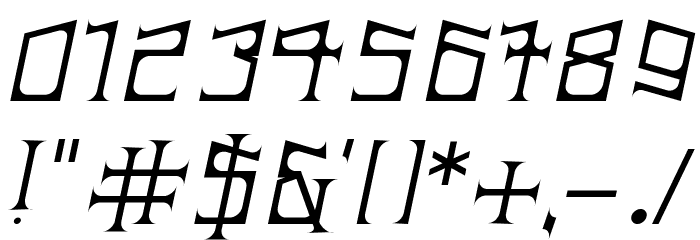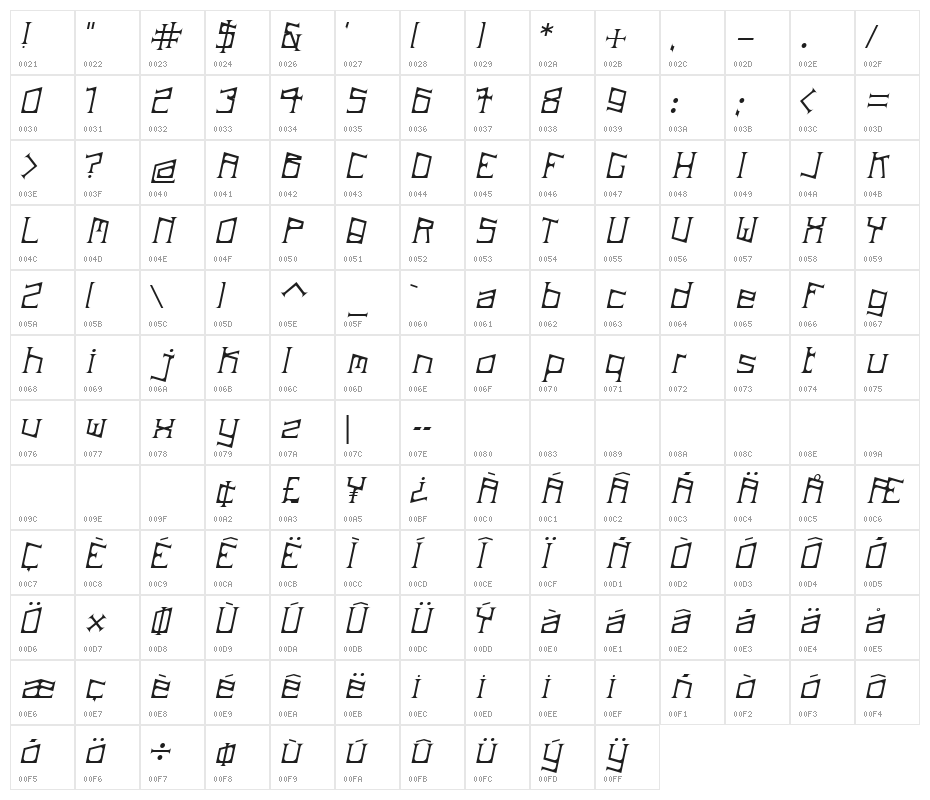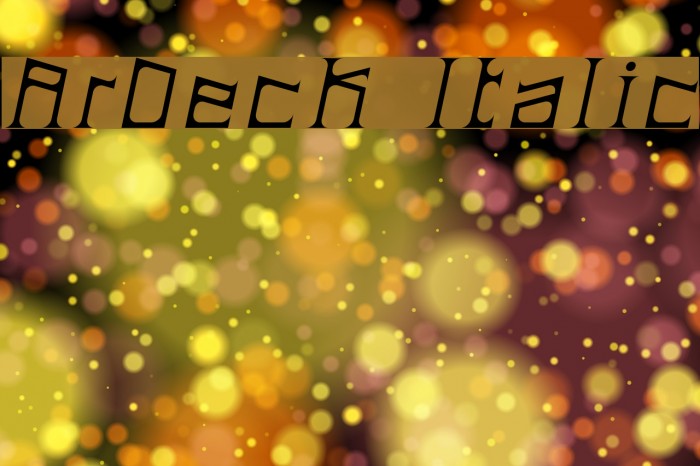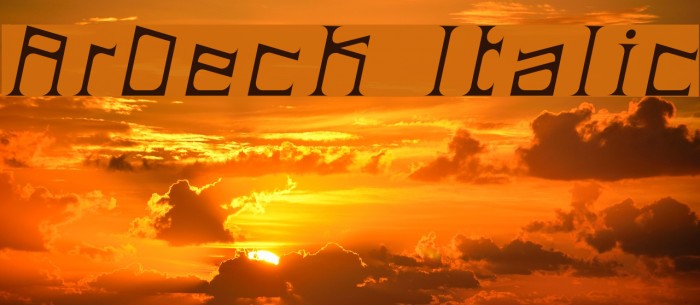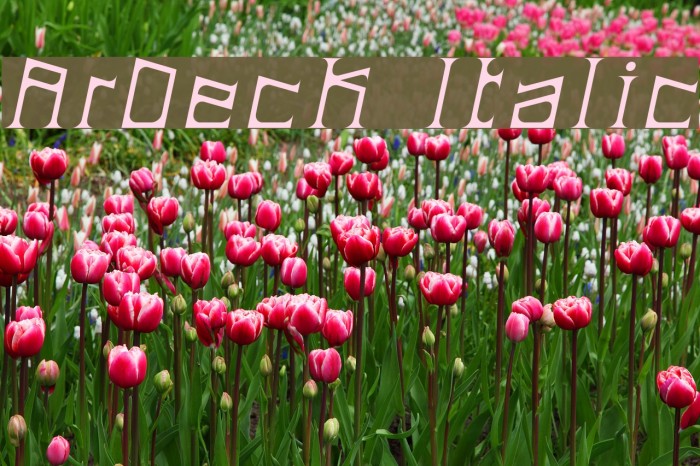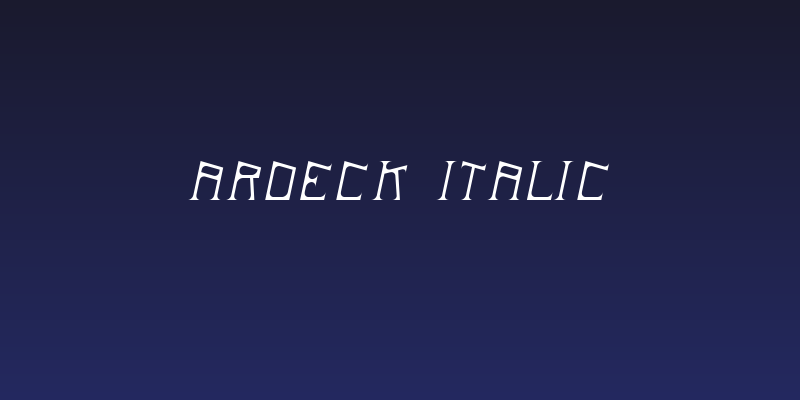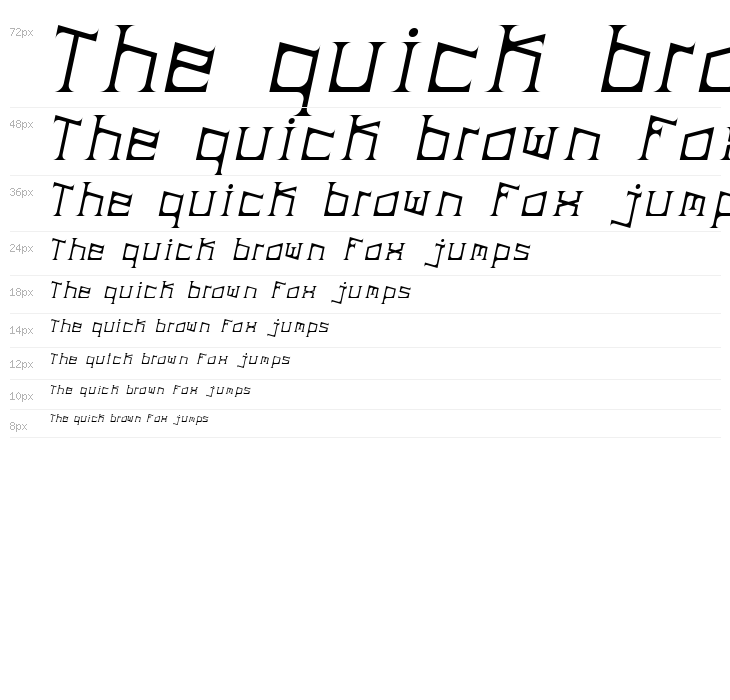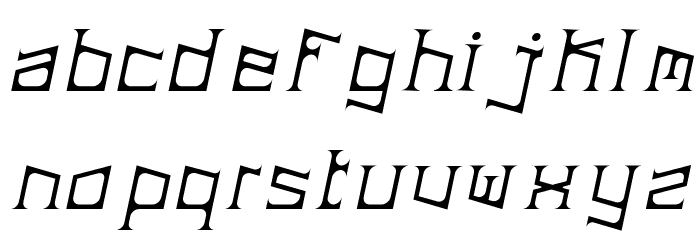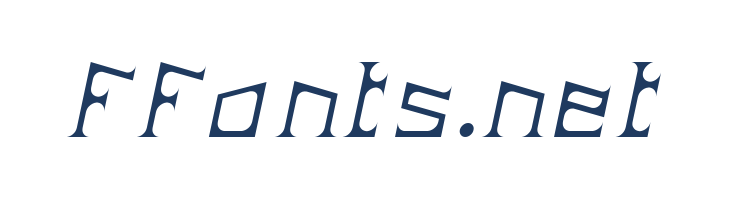
ArDeck Italic Font
ArDeck Italic Description
This font features a unique and dynamic style with a distinct italic slant, giving it a sense of movement and energy. The characters are designed with sharp, angular edges and a slightly condensed form, which adds to its bold and striking appearance. The uppercase and lowercase letters maintain a consistent style, with a playful yet sophisticated look. The numbers and special characters are equally stylized, ensuring a cohesive appearance across all glyphs. This font's design is both modern and edgy, making it suitable for projects that require a strong visual impact.